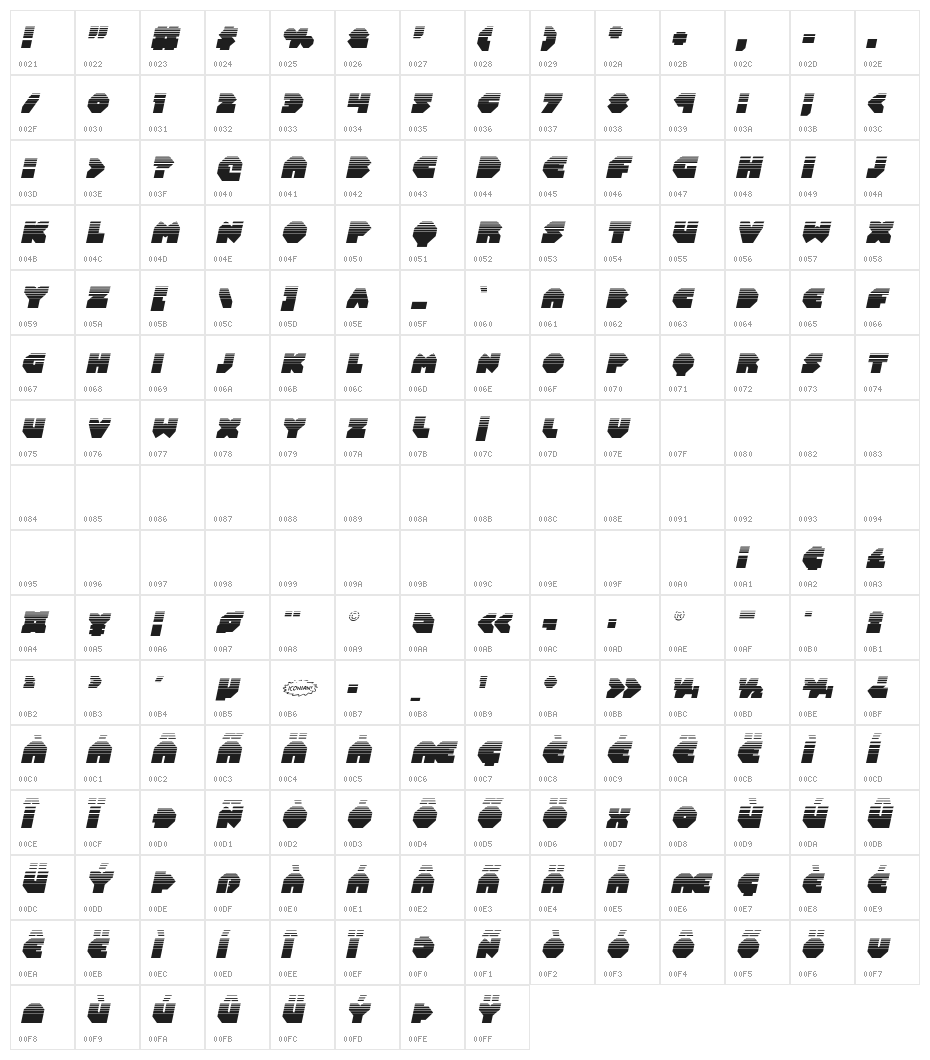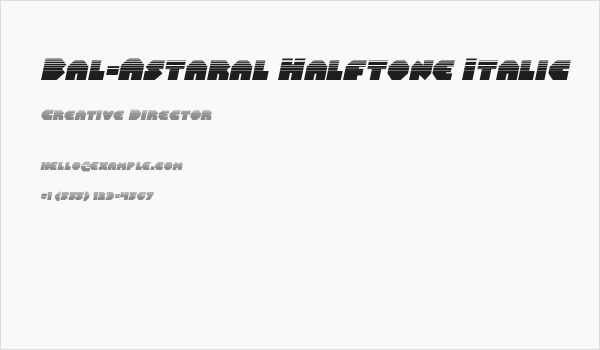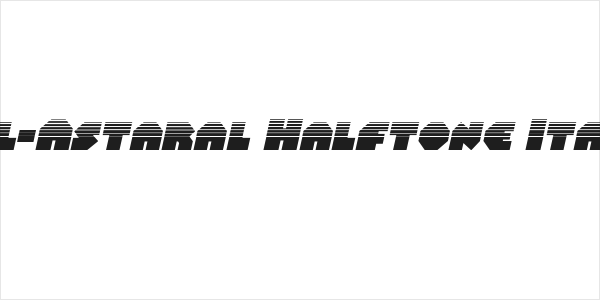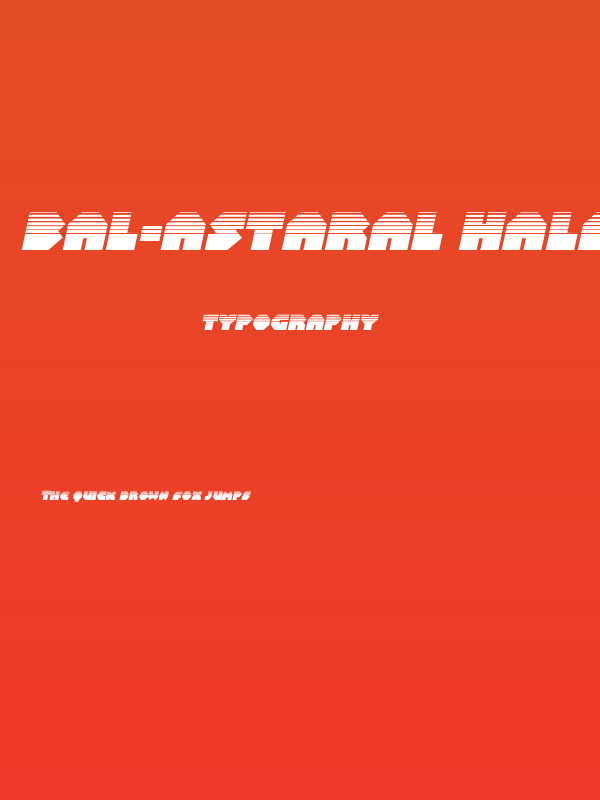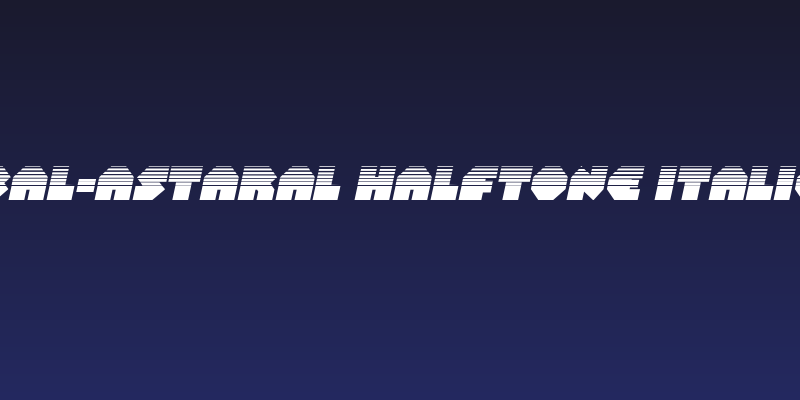
Bal-Astaral Halftone Italic Font
Bal-Astaral Halftone Italic Description
This bold, decorative font features a unique halftone effect with horizontal lines cutting through each character, creating a dynamic and futuristic appearance. The italicized slant adds a sense of motion and speed, making it ideal for projects that require a modern and edgy look. The uppercase and lowercase letters, along with numbers and special characters, maintain a consistent style, ensuring versatility across different design needs. The bold weight and expanded width contribute to its striking presence, while the medium contrast in stroke thickness enhances readability despite its decorative nature.
| Overall Style | Futuristic, Dynamic |
| Proposed Projects | Ideal for sci-fi themed posters, video game titles, futuristic branding, and dynamic logo designs. |